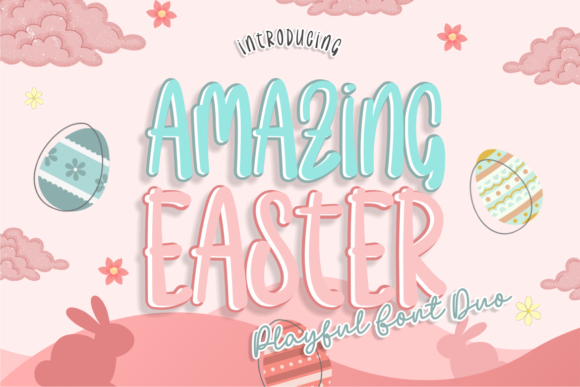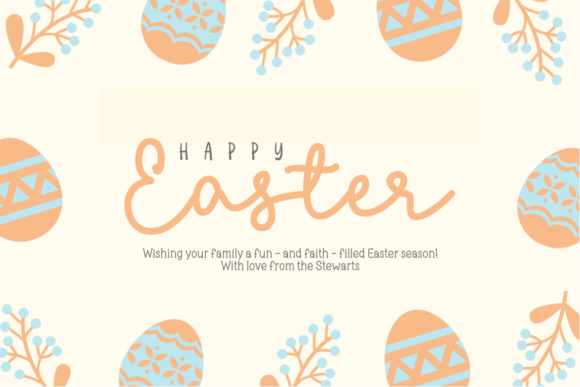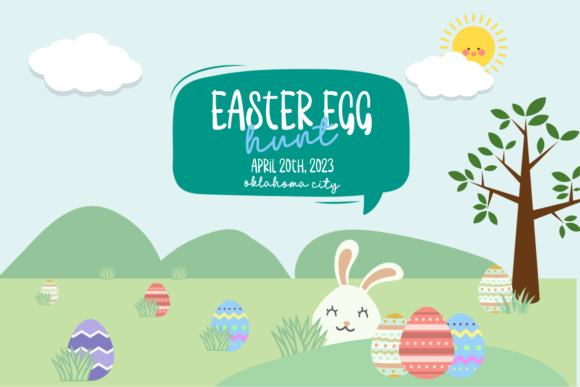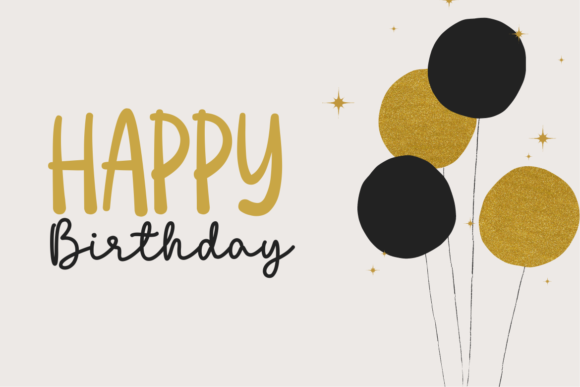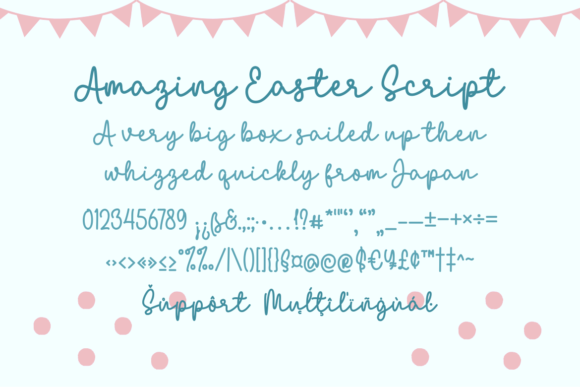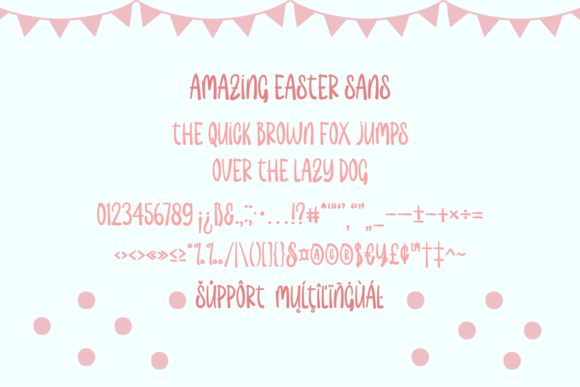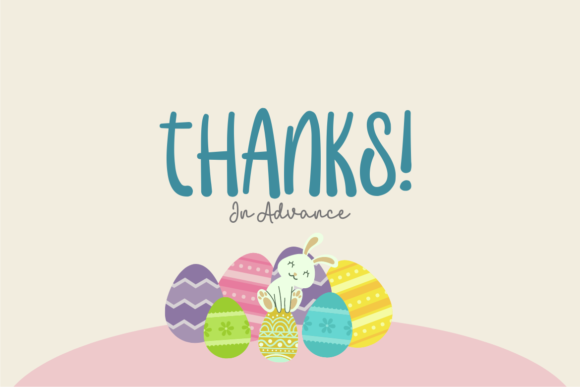
Amazing Easter Duo Font
About Amazing Easter Duo Font
The Amazing Easter Duo is a stylish and delicate combination of two fonts – script and display – bringing versatility to a wide spectrum of applications. From greeting cards to headlines, this font duo ensures a romantic touch to each of your creations, making them stand out with a charming aesthetic.
The script font exudes a sense of elegance and fluidity, making it perfect for conveying a romantic and sophisticated vibe. Whether you’re working on invitations, love notes, or any project that demands a touch of grace, the script font in the Amazing Easter Duo adds a stylish flair.
Complementing the script, the display font offers a unique and eye-catching element for headlines, titles, or any text that requires a bold and impactful presence. The combination of these two fonts creates a harmonious duo, providing flexibility and enhancing the visual appeal of your designs.
From the warmth of greeting cards to the prominence of headlines, the Amazing Easter Duo caters to a broad range of creative applications. Its stylish and delicate nature makes it suitable for projects where a romantic and sophisticated touch is desired.
In summary, the Amazing Easter Duo is a delightful pairing of script and display fonts, offering a stylish and delicate aesthetic. Whether you’re designing for greeting cards or headlines, this duo ensures a romantic and charming presence in each of your creations. Embrace the versatility and elegance of the Amazing Easter Duo to elevate your design projects.